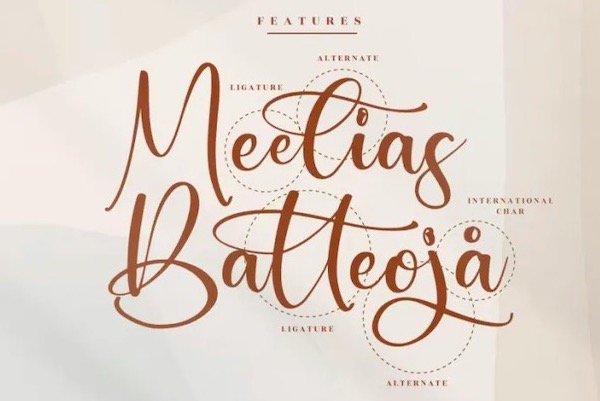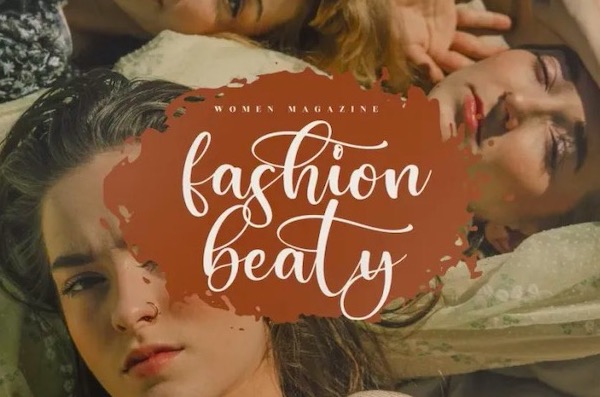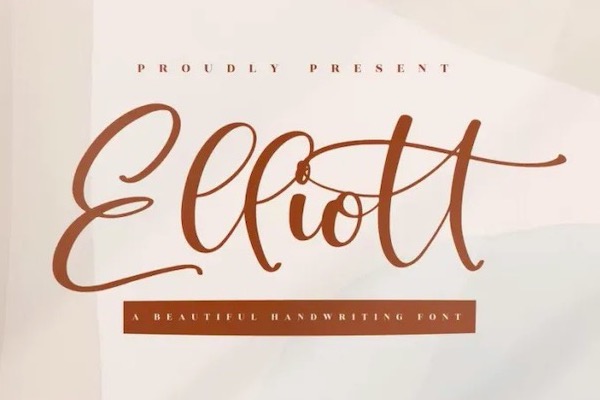
Elliot is a refined and gorgeous handwritten font script font that was created and shared by Vunia Studio. This script font includes many stunning features that make your designs become more beautiful and professional. Elliot also has a classy, elegant, and modern look that can be used for logos, branding, invitations, stationery, wedding designs, social media posts, and much more!
Elliot Handwritten Script Font